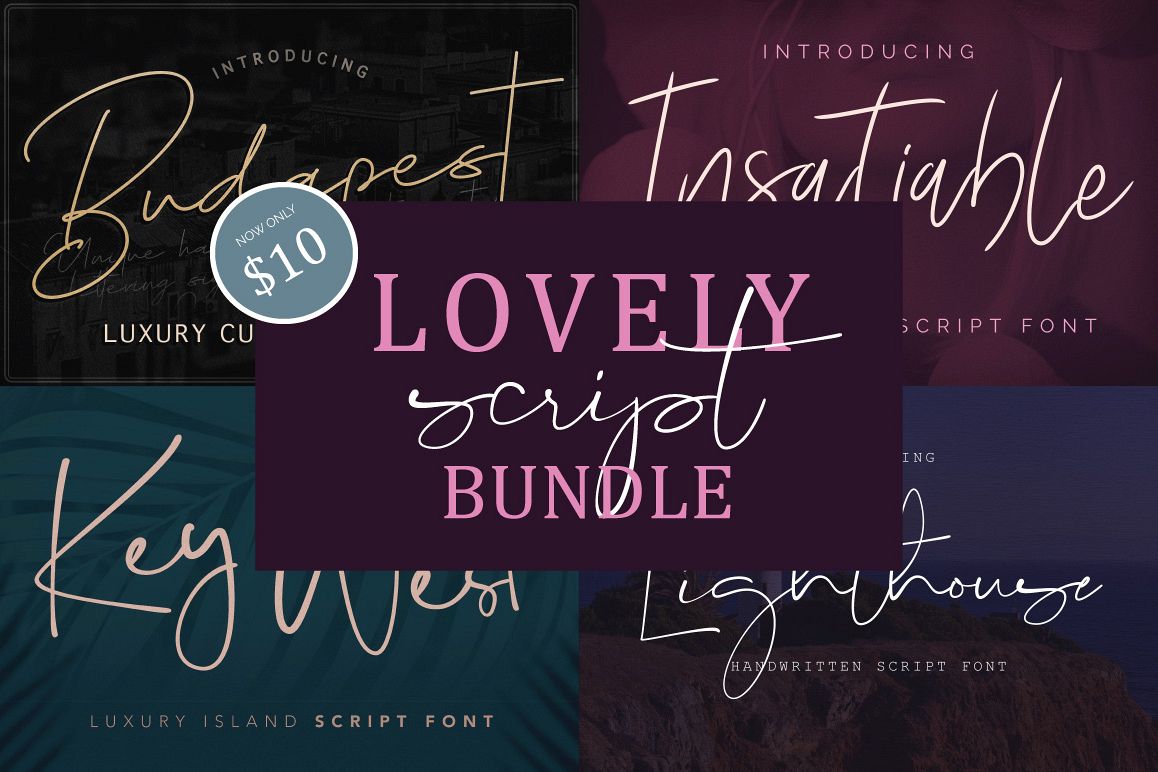
Lovely Script Bundle
Lovely Script Bundle Description
Budapest Font Family
Insatiable Script Font
Key West Script Font
• A handwritten script font containingA upper & lowercase characters, numerals and a large range of punctuation.
Lighthouse Script Font